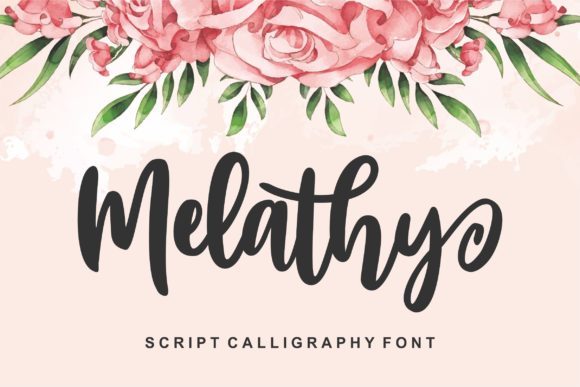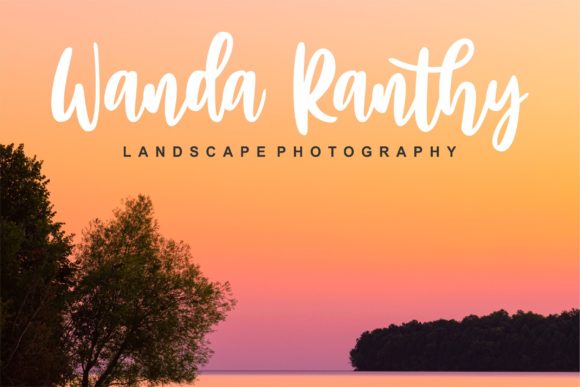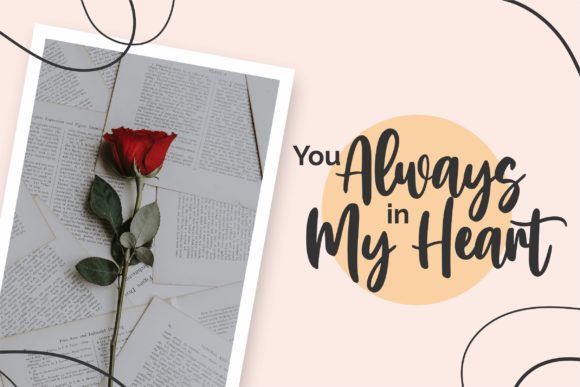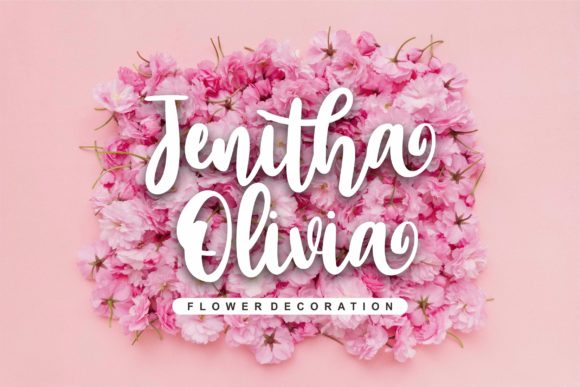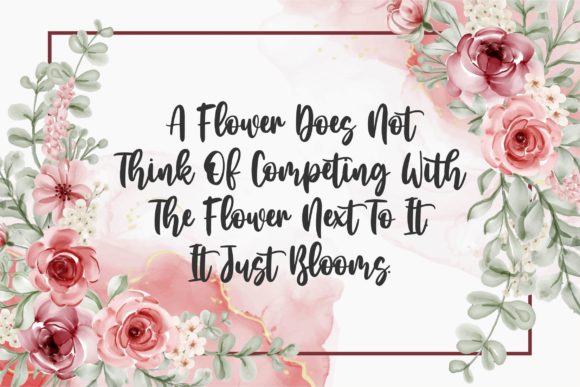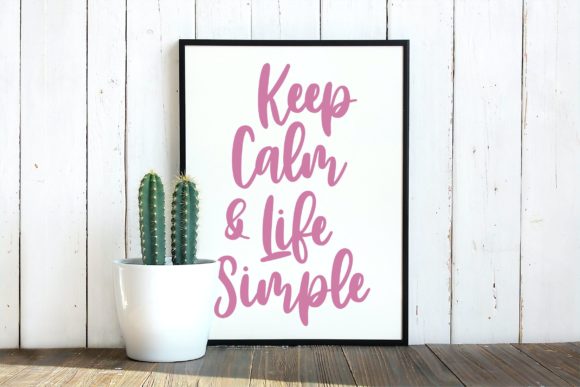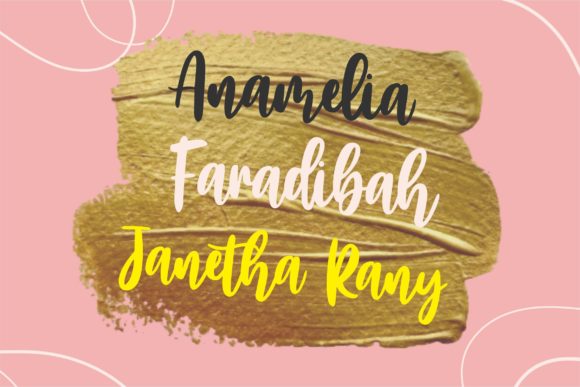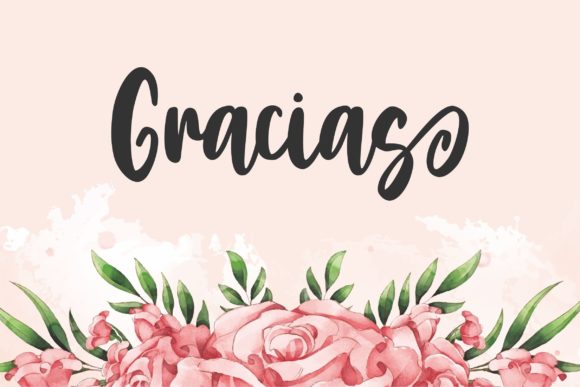
Melathy Font
Melathy is a script calligraphy font. It looks stunning on wedding invitations, thank you cards, quotes, greeting cards, logos, business cards and every other design which needs a handwritten touch. Add it to your most creative ideas and notice how it makes them come alive!